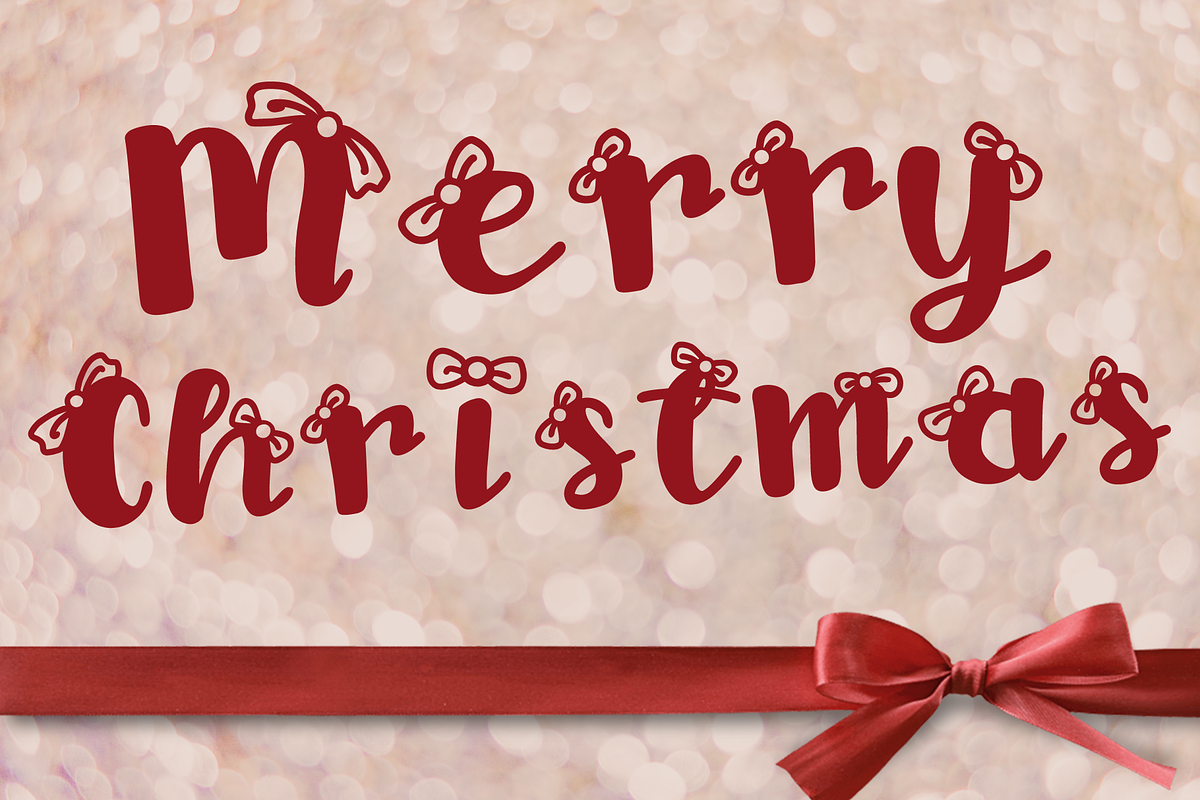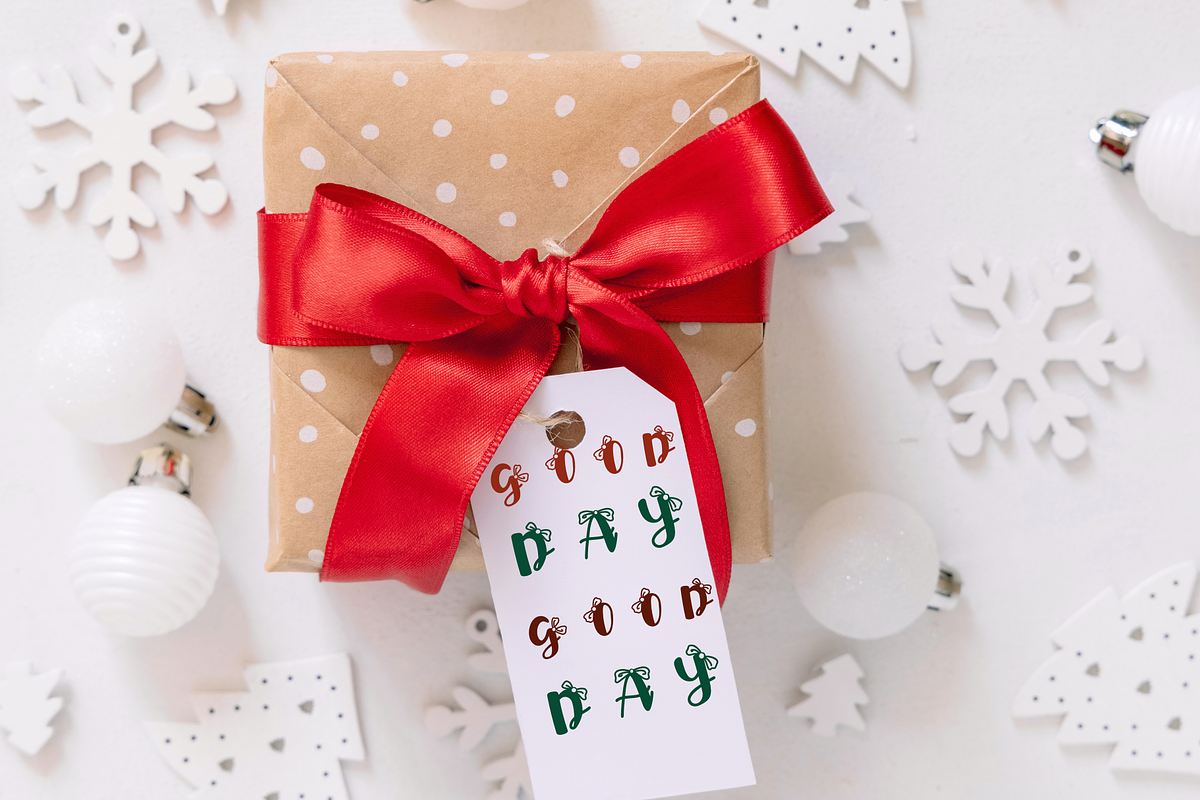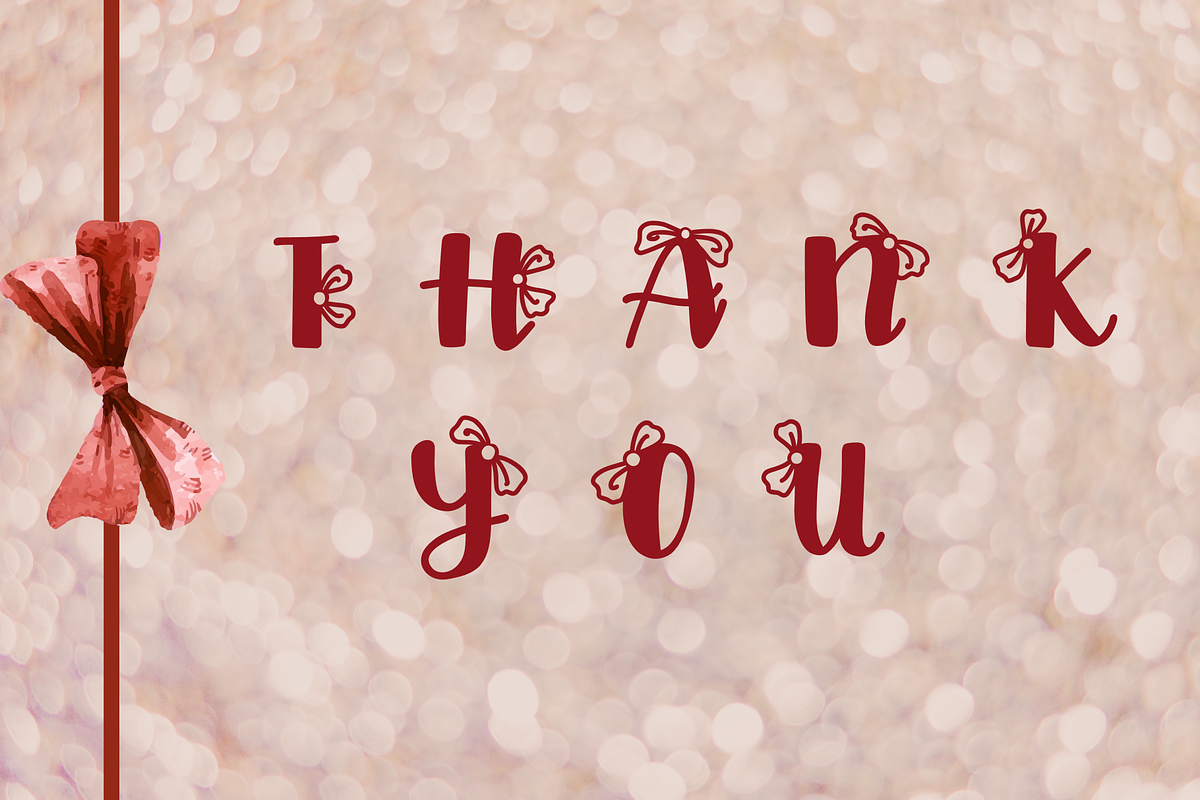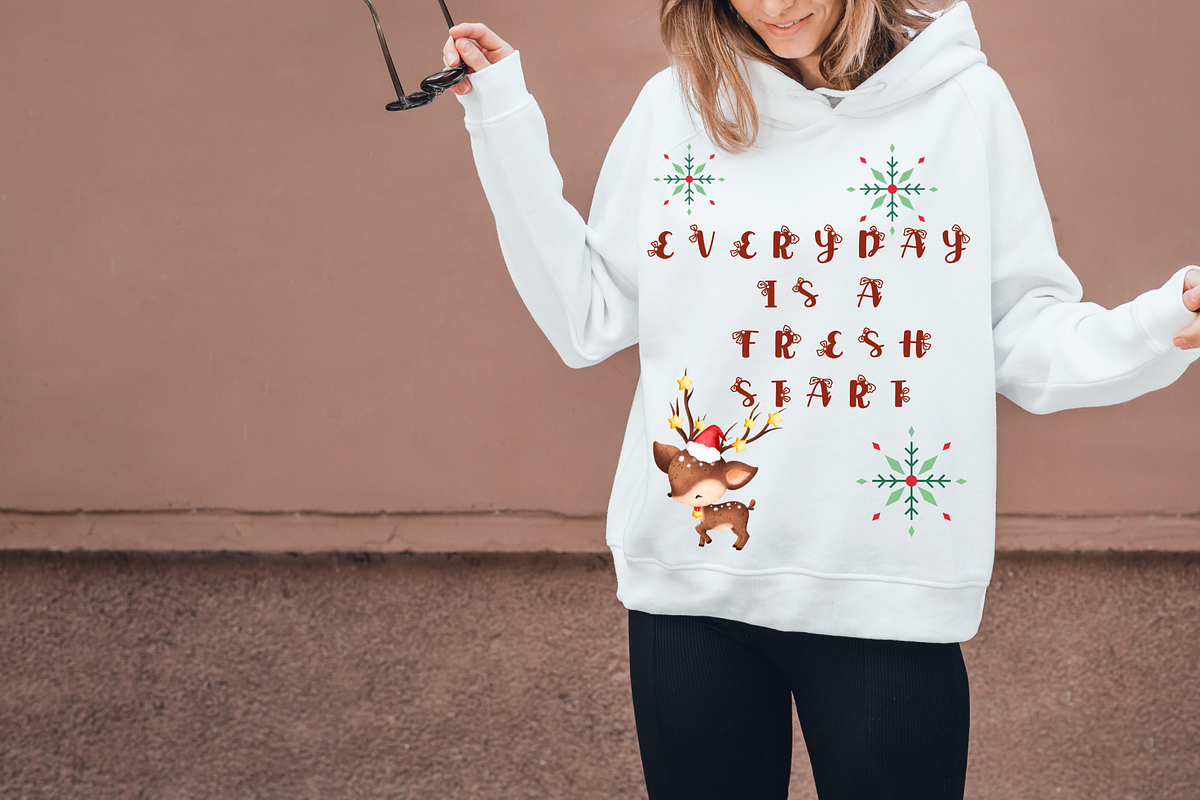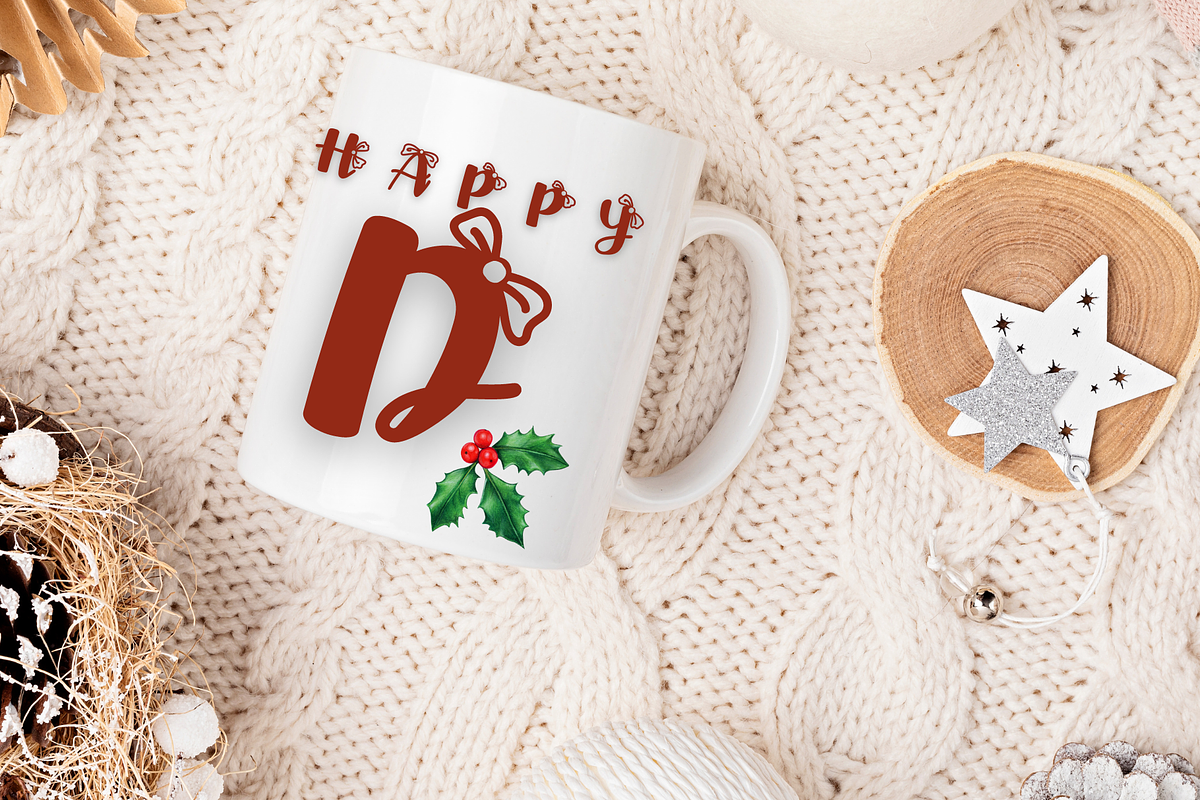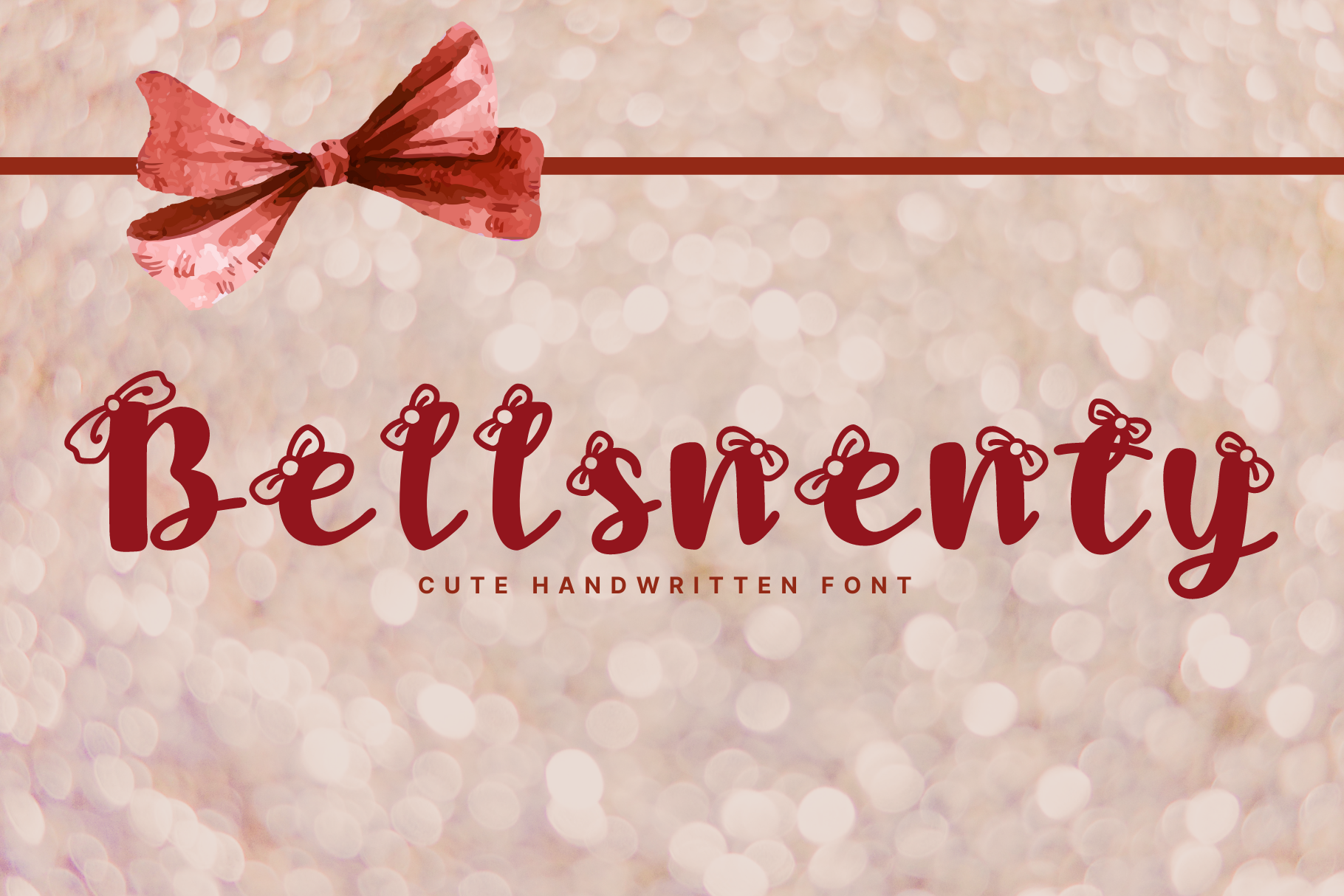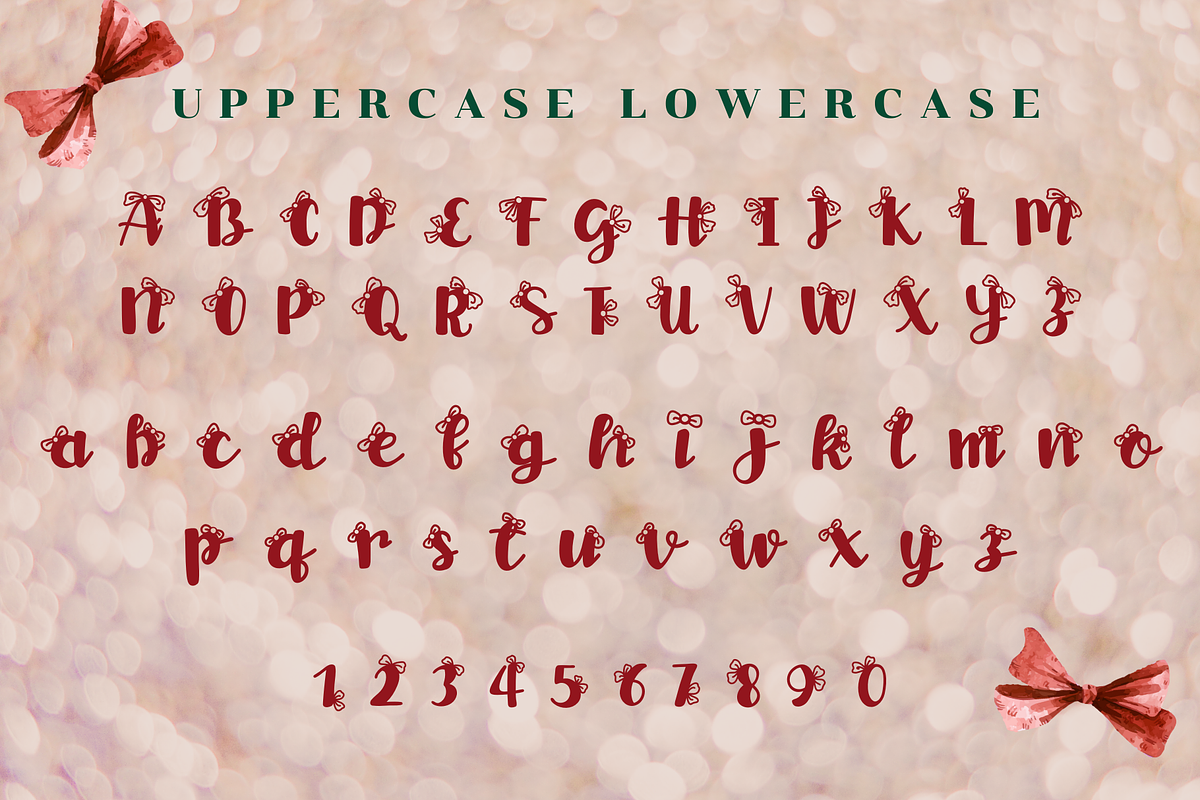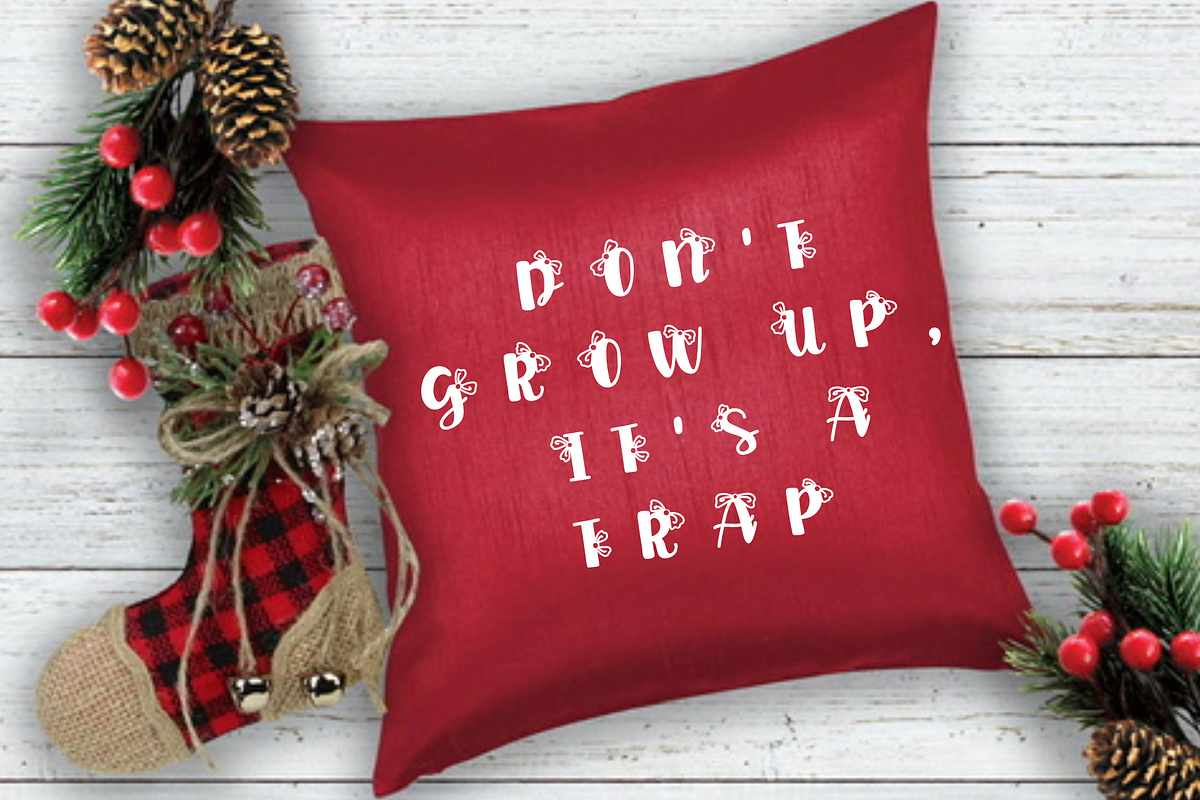
Bellsnenty font
🎀🎀Bellsnenty cute Christmas handwriting font.This font comes in a Christmas holiday theme, filled with cuteness and style, making your work unique, interesting, and suitable for various purposes. You can use this font for a wide range of projects, including greeting cards, gift decorations, clothing, glassware, and more.
WHAT'S INCLUDED This font contains standard characters, lowercase, uppercase, numbers, punctuation and international characters.